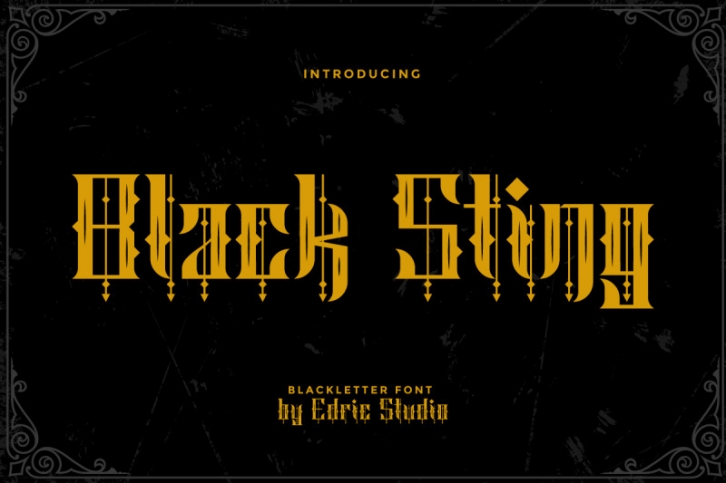
Black Sting is a blackletter display font inspired from Gothic style. It has stunning, mysterious, horror, classic and vintage style. Black Sting Classic Font  will be perfect for branding, logo, photography and headlines etc. It is so elegant, classy, strong and unique.